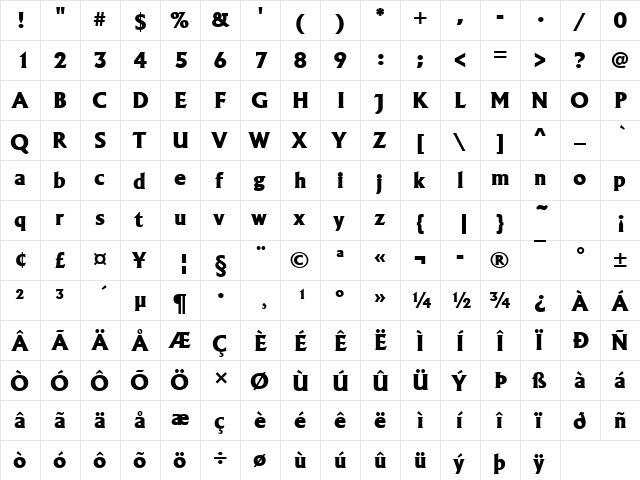
URWAlbireoTExtBol Regular Font Preview
URWAlbireoTExtBol Regular
Design Context for URWAlbireoTExtBol Typeface
URWAlbireoTExtBol is a composed and adaptable typeface that performs quietly and consistently across a wide range of design contexts.
Pro Tip: Use URWAlbireoTExtBol in both headline and body roles to test its range before committing to a single application.